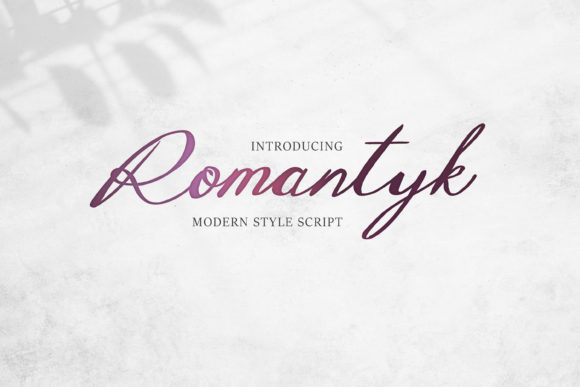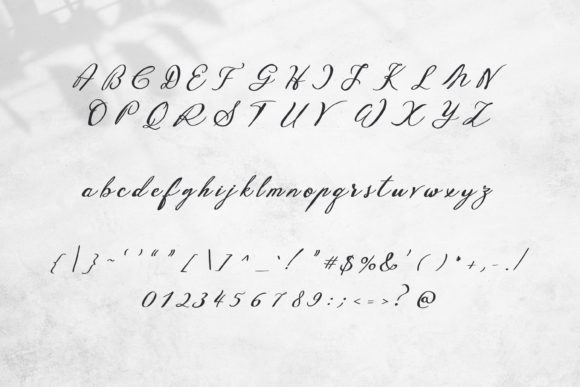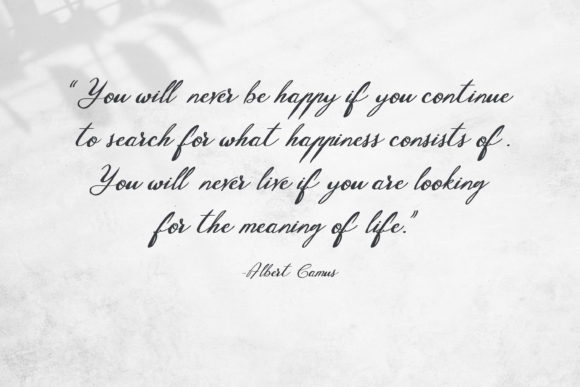
Romantyk Font
About Romantyk Font
Romantyk is a modern and sophisticated handwritten font, carefully handcrafted to become a true favorite. Its casual charm makes it appear wonderfully down-to-earth, readable and, ultimately, incredibly versatile. Romantyk will look outstanding in any context, whether it’s being used on busy backgrounds or as a standalone headline!